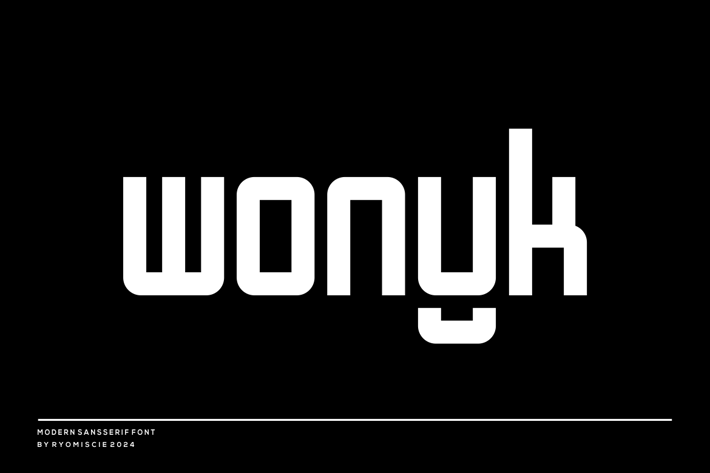
Wonyk - Modern Sans Serif Font
Introducing our new product Wonyk Font - Modern Sans Serif Font
Wonyk Font- Modern Sans Serif Font is a bold and authentic display font.
The font is suitable for any branding project like logo,
t-shirt printing, esport, and many more. outstanding in a wide range of contexts.